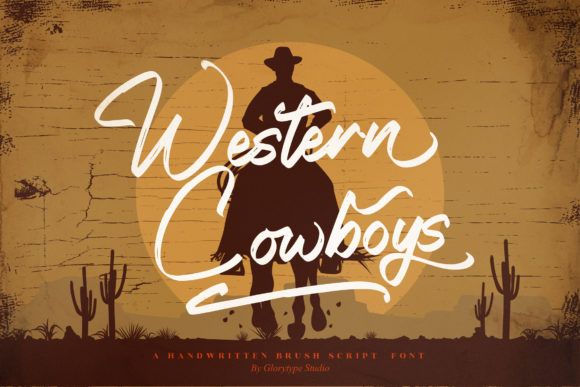
Are you searching for the perfect font to bring a touch of charm and elegance to your projects? Look no further than Western Cowboys Font, a delightful script font created by Glorytype Studio. With its relaxed and delicate handwritten style, this font is the epitome of beauty and grace.
Western Cowboys Font is the ideal choice for any project that requires lovely and romantic typography. Whether you're designing a Halloween poster, crafting a heartfelt invitation, or creating a stunning logo, this font will add a captivating and enchanting touch to your work.
One of the standout features of Western Cowboys Font is its PUA encoding. This means that you have easy access to all the unique glyphs and swashes that make this font truly special. Unlock a world of creativity and customization with the wide range of characters at your disposal.
Imagine the impact of using Western Cowboys Font on your Halloween poster. The intricate curves and elegant strokes will draw attention and create a sense of mystery. Your message will be conveyed with a touch of magic, leaving a lasting impression on your audience.
But it doesn't stop there. Western Cowboys Font is versatile, allowing you to use it for a range of projects beyond Halloween. From wedding invitations to branding materials, this font will elevate your designs and make them truly unforgettable.
The Western Cowboys Font family is a must-have for any designer or creative professional looking to make a statement. Its authentic and handcrafted feel will add a personal touch to your projects, setting you apart from the crowd.